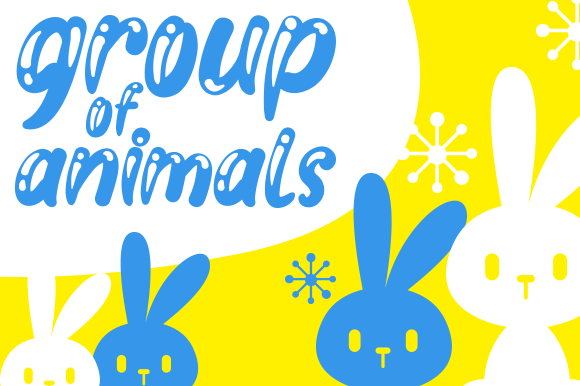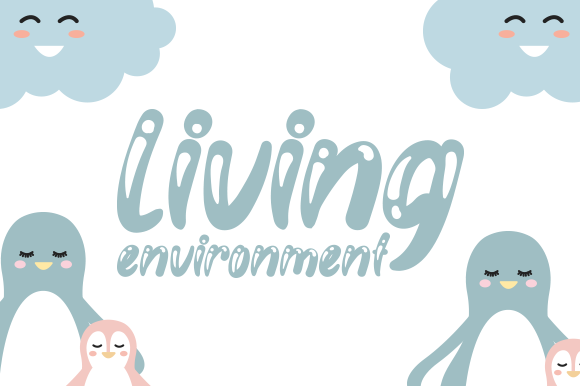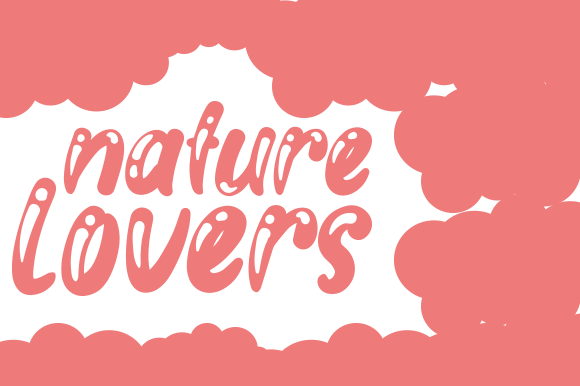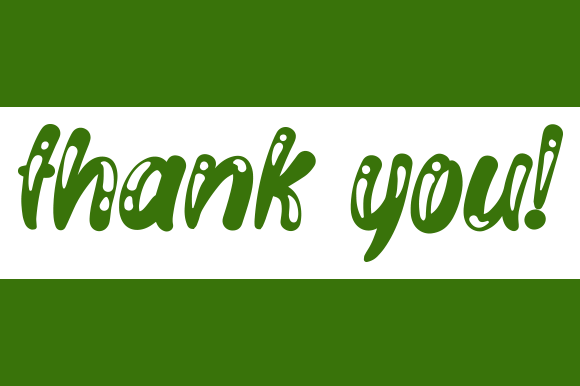
Cute Animal Font: Elevate Your DIY Projects with a Touch of Whimsy
Are you a designer, crafter, or DIY enthusiast looking for a font that can add a dash of personality to your projects? Look no further than the Cute Animal Font, a stunning display font that simplifies elegance into one truly outstanding design. With its unique and gorgeous aesthetic, this font is sure to bring any DIY project to life!
The Charm of Cute Animal Font
The Cute Animal Font is a one-of-a-kind typeface that exudes a sense of playfulness and whimsy. Its cute and endearing design makes it perfect for a wide range of creative projects, from handmade cards and invitations to branding and advertising materials. Whether you’re looking to add a touch of humor, create a memorable logo, or simply want to make your project stand out, this font is sure to delight.
Key Features of Cute Animal Font
- Unique Design: The Cute Animal Font boasts a truly unique design that sets it apart from other fonts. Its adorable animal-inspired characters are sure to capture the hearts of your audience.
- Elegant and Playful: This font strikes the perfect balance between elegance and playfulness, making it suitable for a wide range of projects, from formal to informal.
- High-Quality: The Cute Animal Font is a high-quality font that is designed to deliver exceptional results. Its clear and crisp design ensures that your project looks professional and polished.
How to Use Cute Animal Font in Your DIY Projects
The Cute Animal Font is incredibly versatile and can be used in a variety of DIY projects, including:
- Handmade Cards: Add a personal touch to your handmade cards with the Cute Animal Font. Its playful design is sure to make your cards stand out.
- Invitations: Create memorable invitations for parties, weddings, and other special events with this font.
- Branding and Advertising: Use the Cute Animal Font to create eye-catching branding and advertising materials, such as logos, posters, and flyers.
- Scrapbooking: Add a touch of whimsy to your scrapbooking projects with this font.
Tips for Getting the Most Out of Cute Animal Font
To get the most out of the Cute Animal Font, here are a few tips:
- Experiment with Colors: The Cute Animal Font looks great in a variety of colors. Experiment with different colors to find the one that works best for your project.
- Mix and Match: Don’t be afraid to mix and match the Cute Animal Font with other fonts to create a unique look.
- Use it Sparingly: While the Cute Animal Font is a stunning design, it’s best to use it sparingly to avoid overwhelming your project.